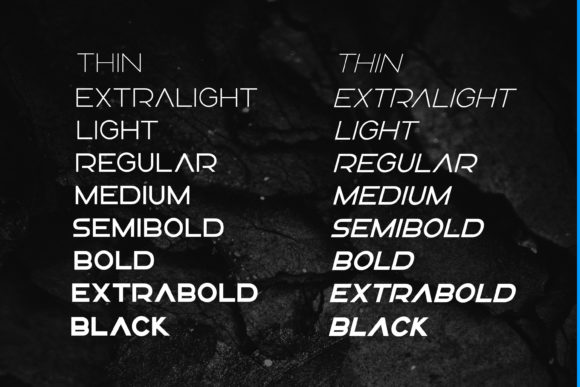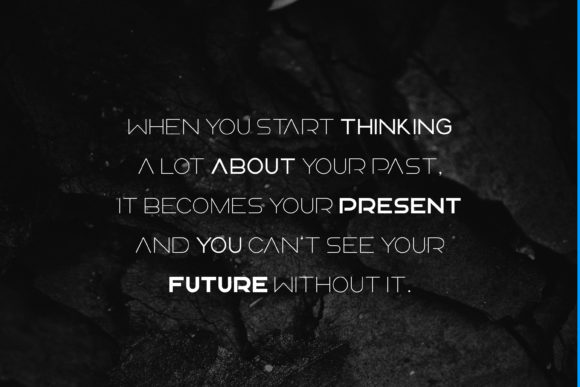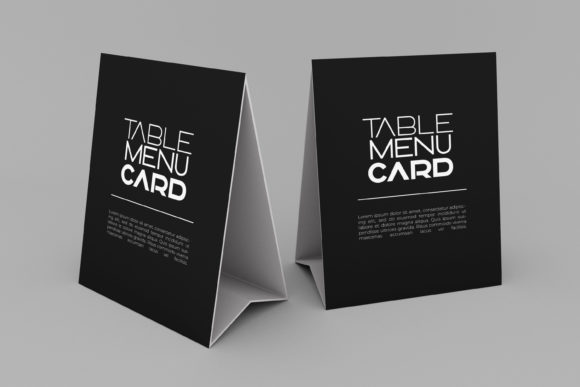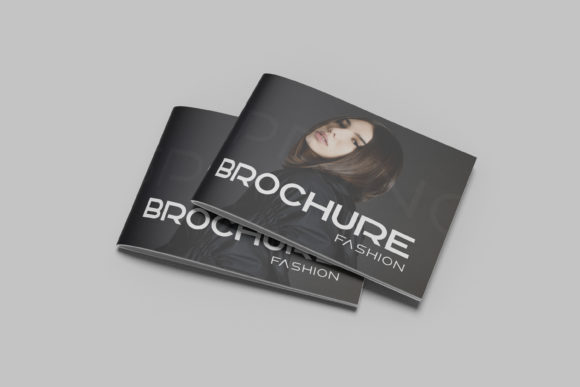
Introduction to Ricordo Font
As a designer, there’s nothing quite like the thrill of bringing a creative project to life. The moment when your idea finally takes shape and you get to see your vision on screen – it’s a feeling like no other. But sometimes, that spark of inspiration can get lost in the sea of generic fonts and tired typography. That’s where the Ricordo Font comes in – a game-changing display typeface that adds a touch of sophistication and elegance to any design.
Perfect for headlines, logotypes, and branding, the Ricordo Font is a design resource that’s sure to elevate your work to the next level. With its high-quality design and transparent background, this font is a free download that’s just waiting to be unleashed on your next creative project. And the best part? It’s a versatile tool that can be used to create unique monograms, logos, and identities that truly stand out from the crowd.
Key Features of Ricordo Font
- High-quality design resource perfect for creative projects and personal use.
- Transparent background for seamless integration with any design.
- Size: Includes 6 styles, each with unique characteristics and nuances.
- Perfect for designers, artists, and writers seeking a unique and elegant font for their creative projects.
Honest Review: Ricordo Font
I recently had the chance to experiment with the Ricordo Font, and I must say it’s been a great addition to my design resource library. This free download has been a game-changer for my creative projects.
What works well: ✨ The high quality of the font is immediately noticeable. The elegant, vintage feel of the letters makes it perfect for designing invitations, wedding stationery, and other special occasion materials. I’ve also appreciated the transparent background option, which has allowed me to easily overlay the font on various images and backgrounds.
- High-quality font with a unique, vintage feel
- Transparent background option for easy overlay
- Perfect for creative projects such as invitations, stationery, and more
However, I did encounter a few limitations: ⚠️ The font only comes in a few weights, which may limit its versatility for more complex designs. Additionally, the font file sizes are a bit larger than I’d like, which can slow down my design process.
Overall, I’m very impressed with the Ricordo Font. Its unique style and high quality make it a valuable addition to any designer’s library. With a bit more flexibility in terms of weights and file size, it could be even more versatile – but as it stands, it’s a great choice for designers looking for a high-quality, free font.
Ricordo Font
Ricordo Font is a high-quality design resource perfect for creative projects. You can download it for free, providing you with a versatile tool for your design needs. The font features a transparent background, making it easy to use in various design applications.
Tips for Getting the Most Out of Ricordo Font
Experiment with different font sizes, colors, and styles to create a unique look for your design project. Use the transparent background to create a seamless design experience.
Ricordo Font is ideal for use in creative projects such as logos, graphics, presentations, and documents. Its high-quality design makes it perfect for professional and personal projects alike.